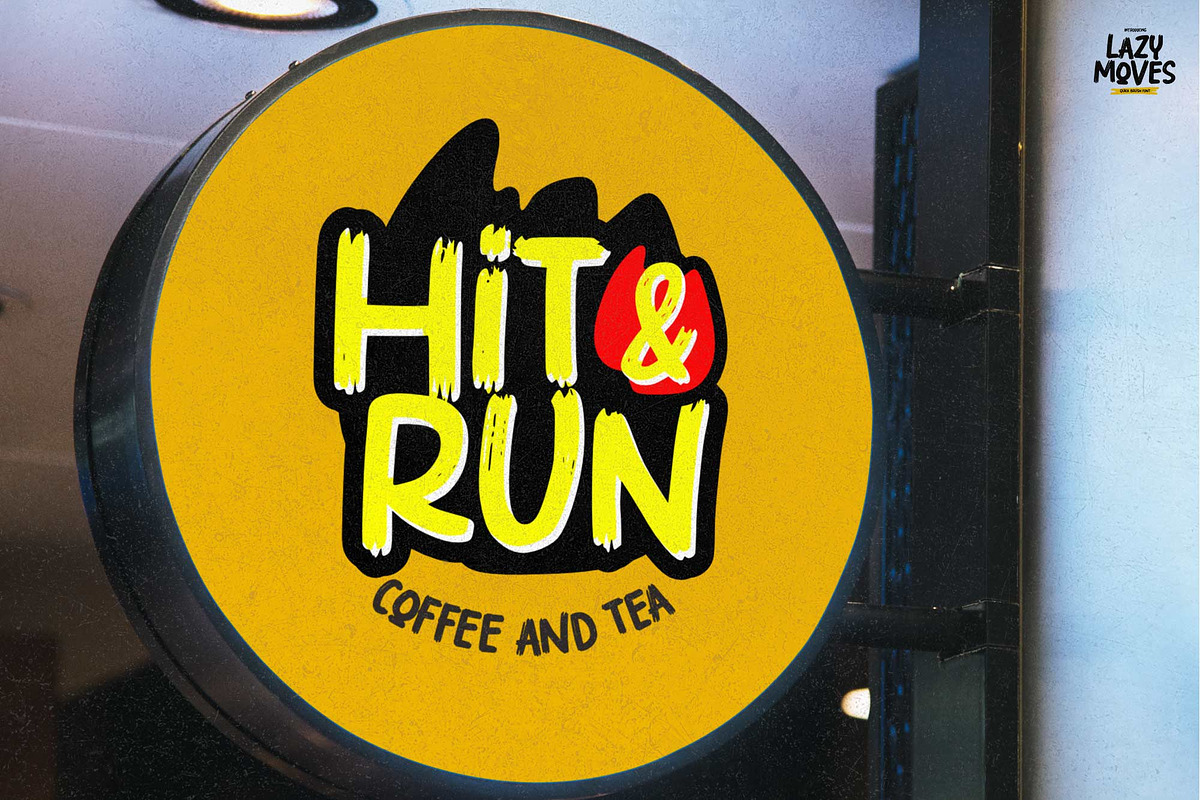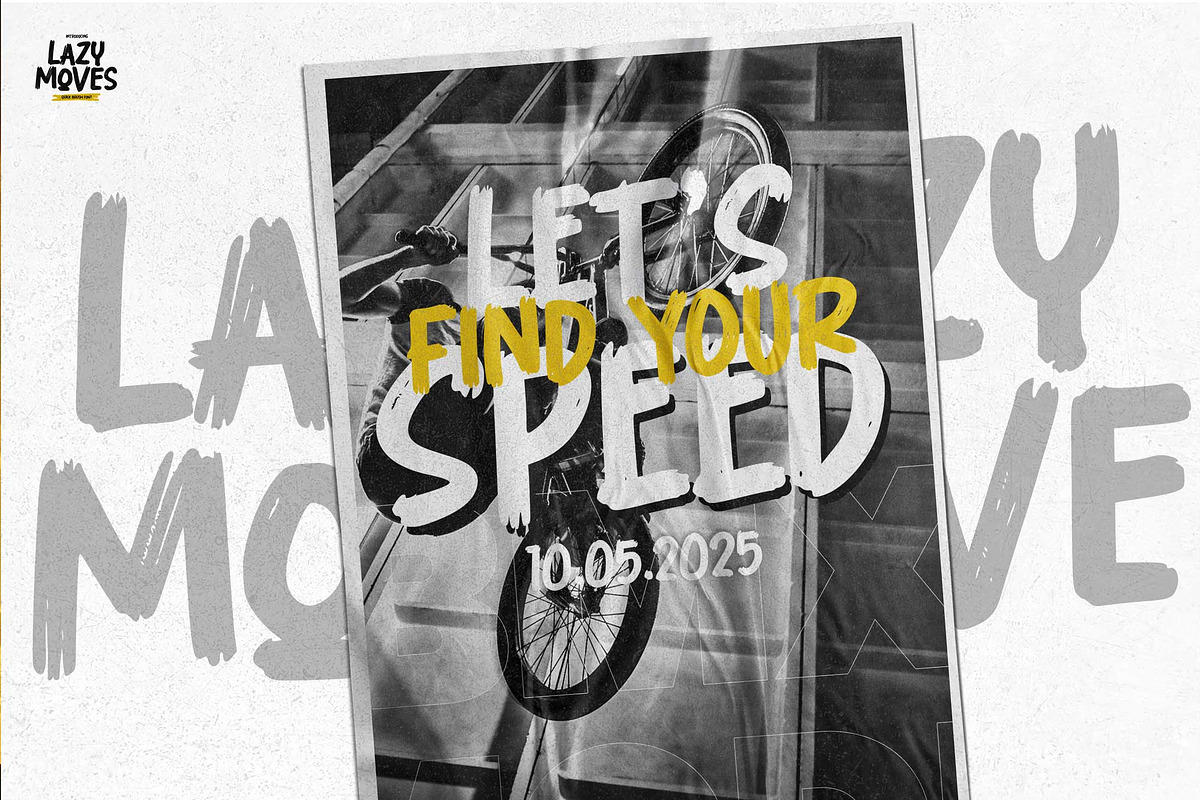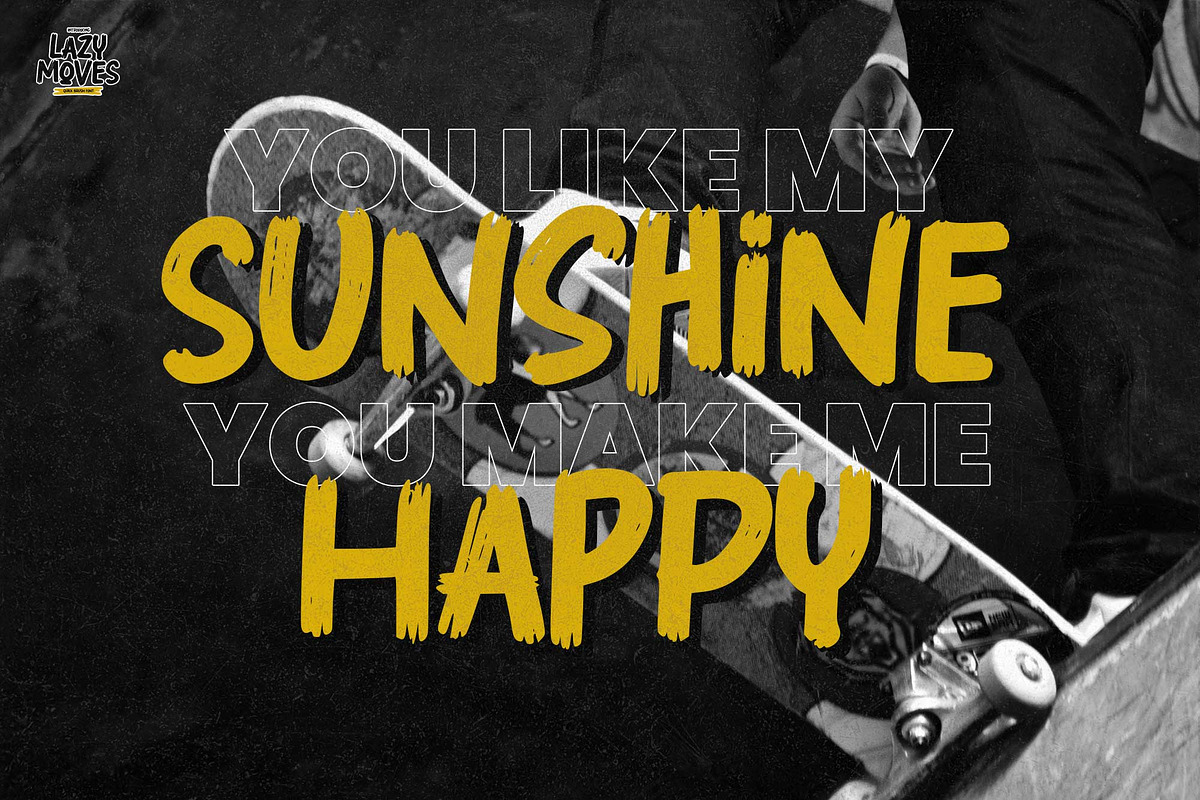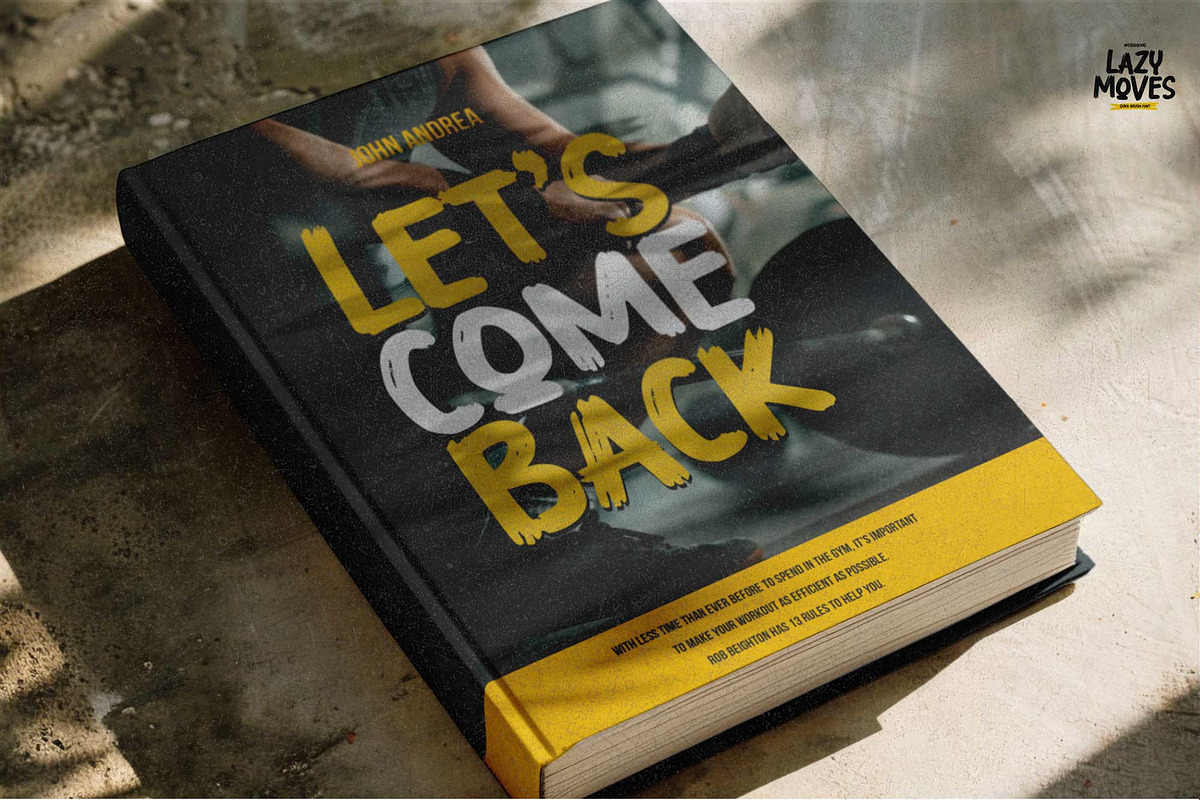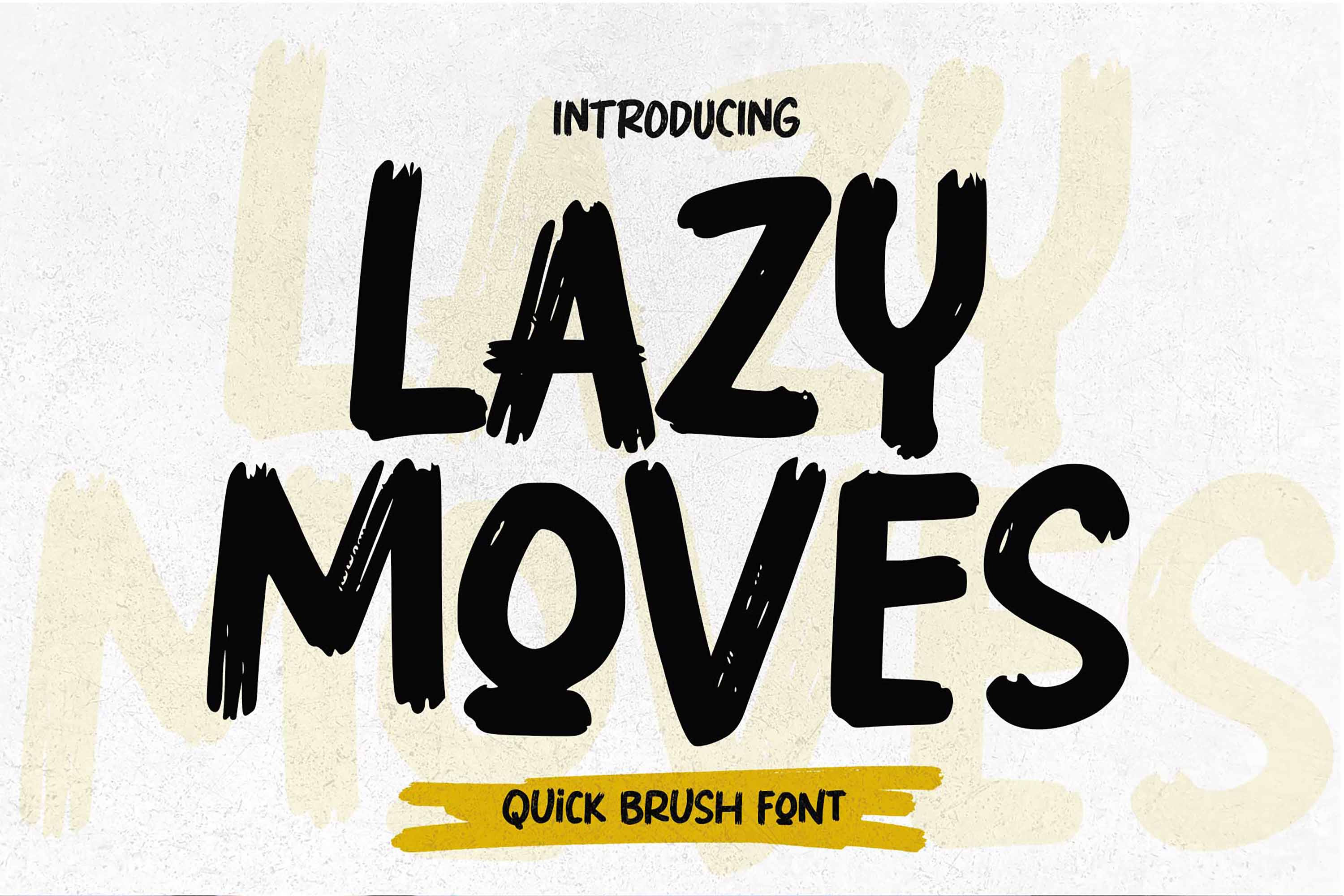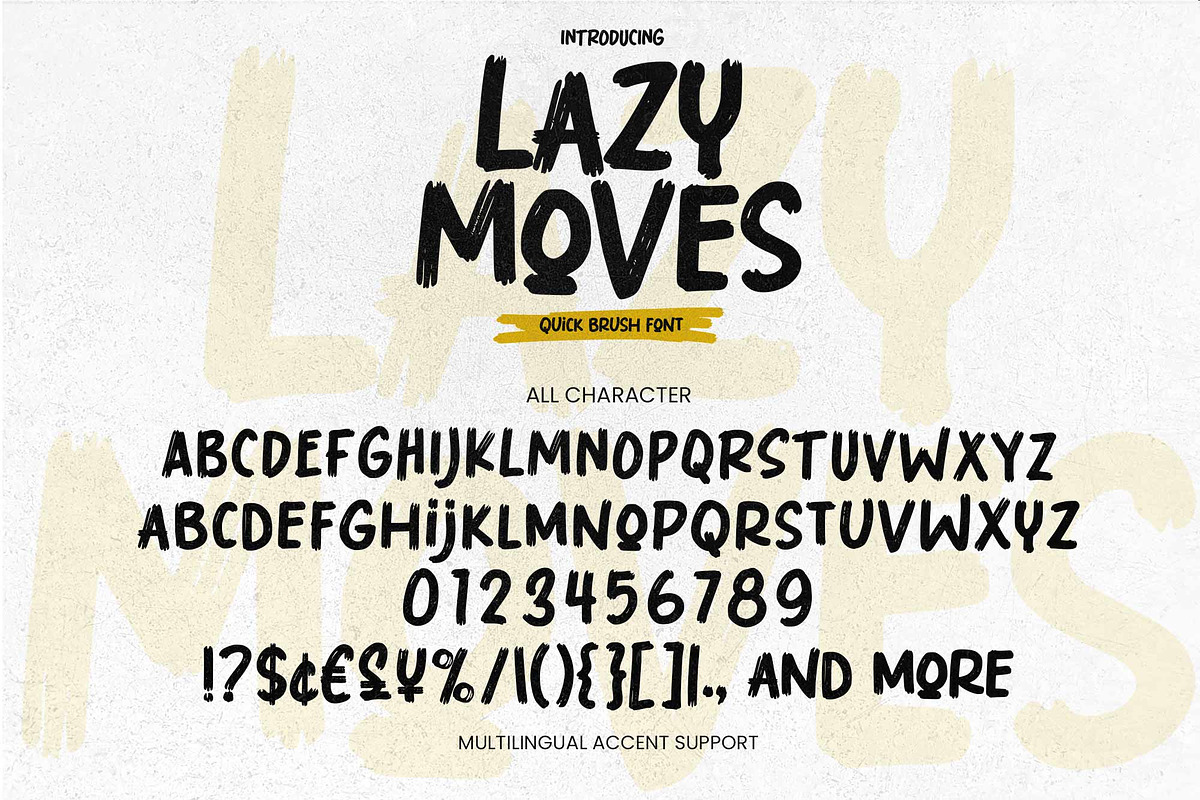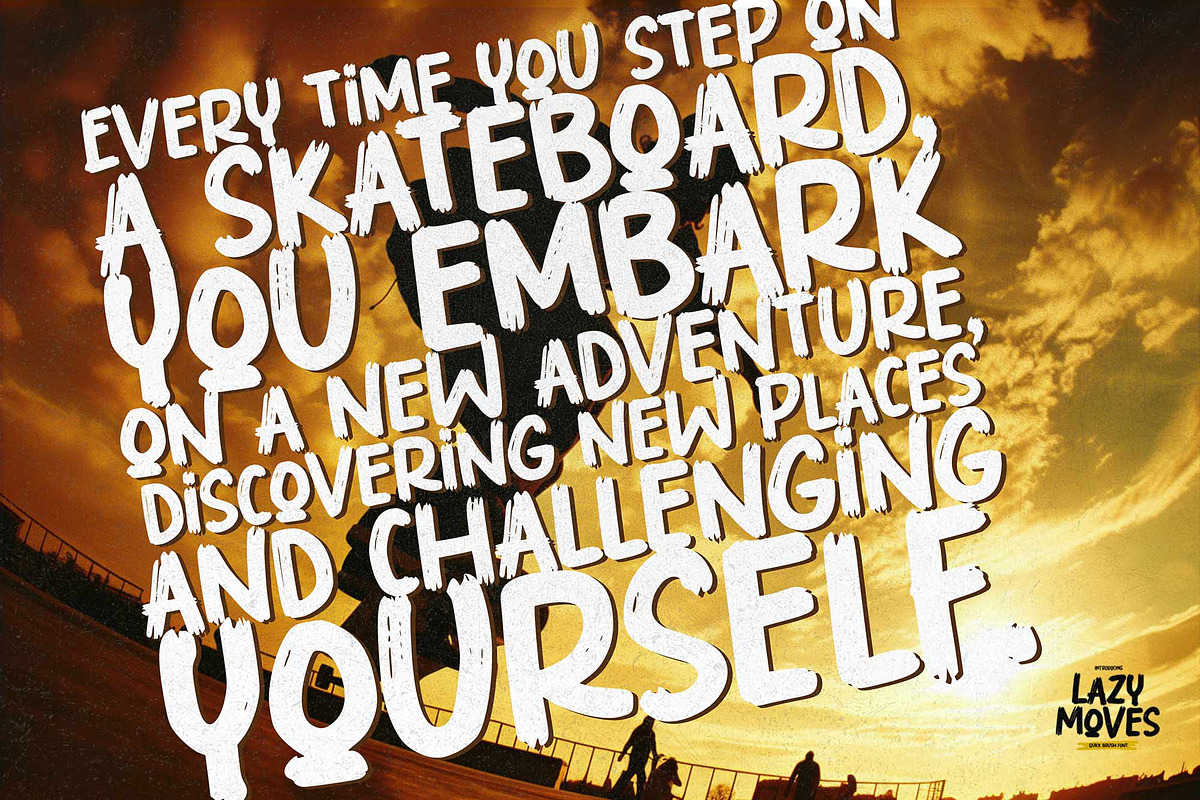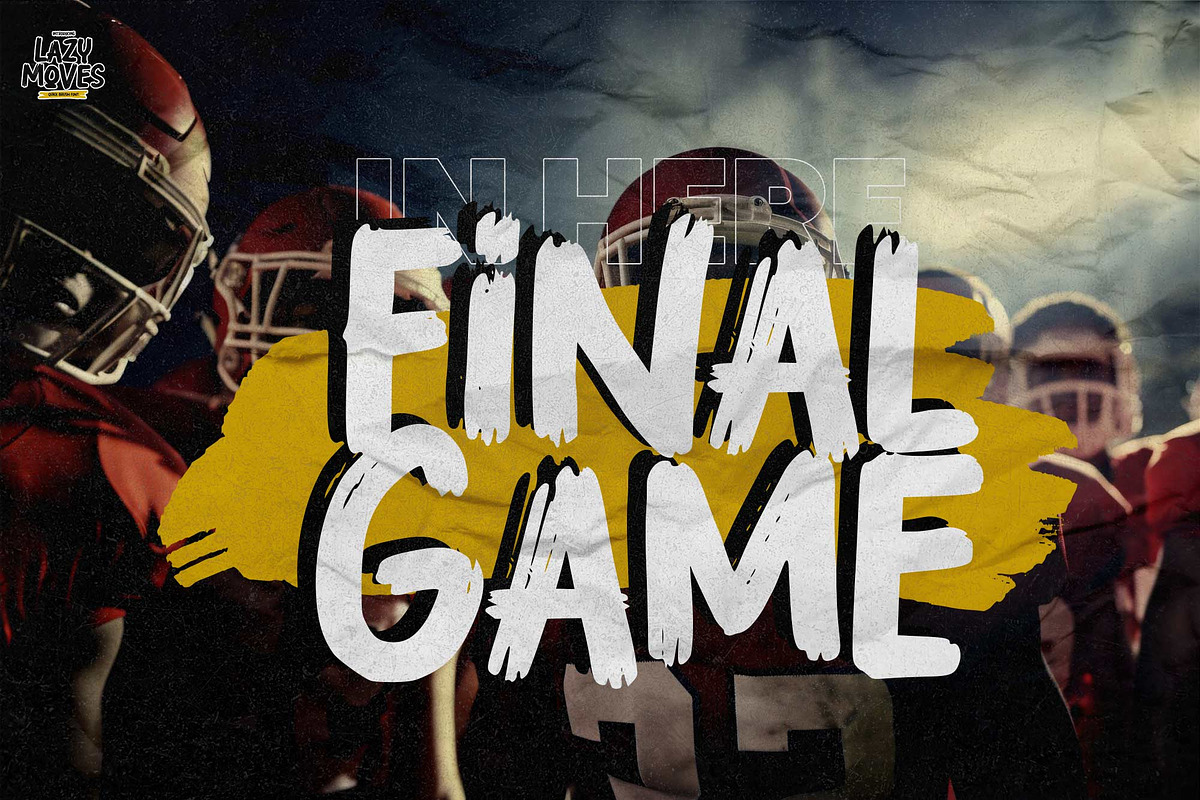
Lazy Moves - Quick Brush Font
Hello Everyone, introduce our new product Font Lazy Moves Quick Brush Font. This is a Textured Natural Style and classy style with a brush handwriten style and grunge style. This font Lazy Moves is great for your next creative project such as logos, printed quotes, invitations, cards, product packaging, headers, Logotype, Letterhead, Poster, Design this font is great for your creative projects such as watermark on photography, and perfect for logos & branding, invitation,advertisements,product designs, stationery, wedding designs,label ,product packaging, special events or anything that need handwritting taste. That is has charming, authentic and relaxed characteristic more natural look to your text.